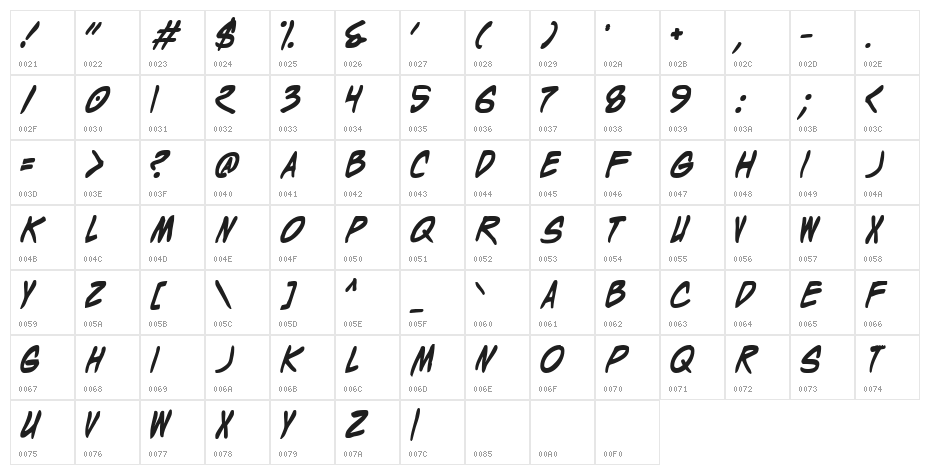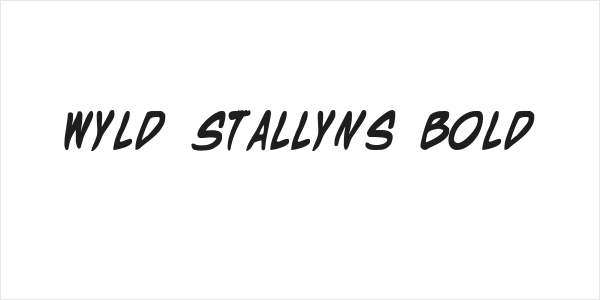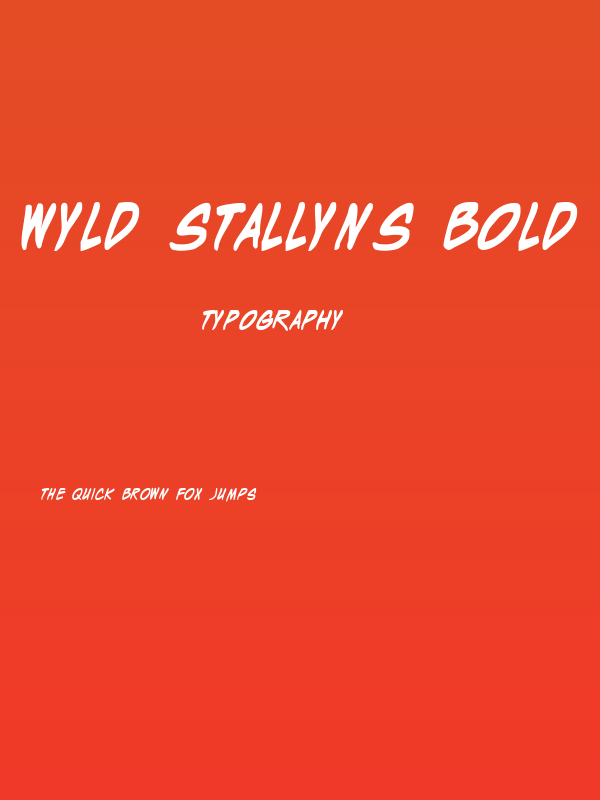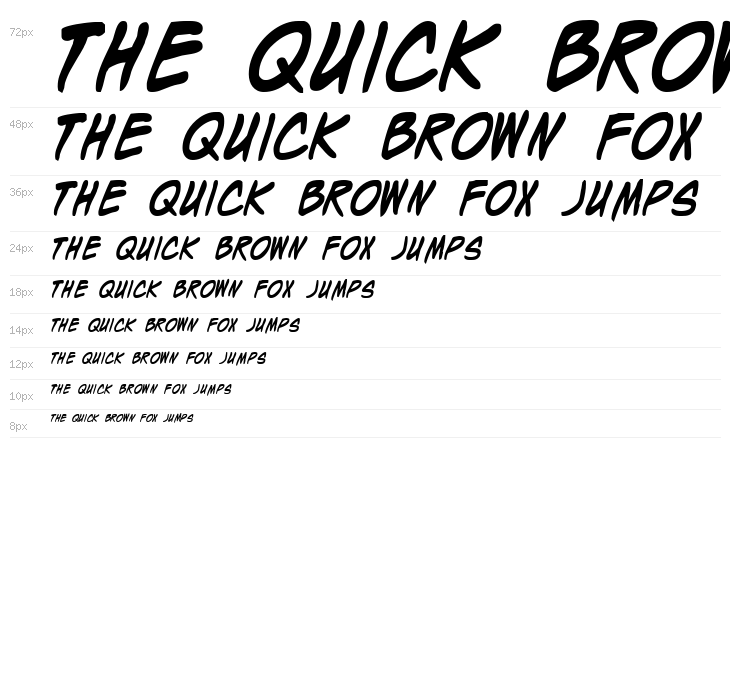
Wyld Stallyns Bold Font
Wyld Stallyns Bold Description
This font features a bold and dynamic style with a handwritten appearance. The characters are slightly slanted, giving a sense of motion and energy. The strokes are thick and consistent, providing a strong visual impact. The uppercase and lowercase letters maintain a cohesive look, while the numbers and special characters are designed to match the overall aesthetic. The font's playful and energetic nature makes it suitable for projects that require a lively and informal touch.
| Proposed Projects | Ideal for posters, music album covers, event flyers, and branding that requires a lively and energetic feel. |